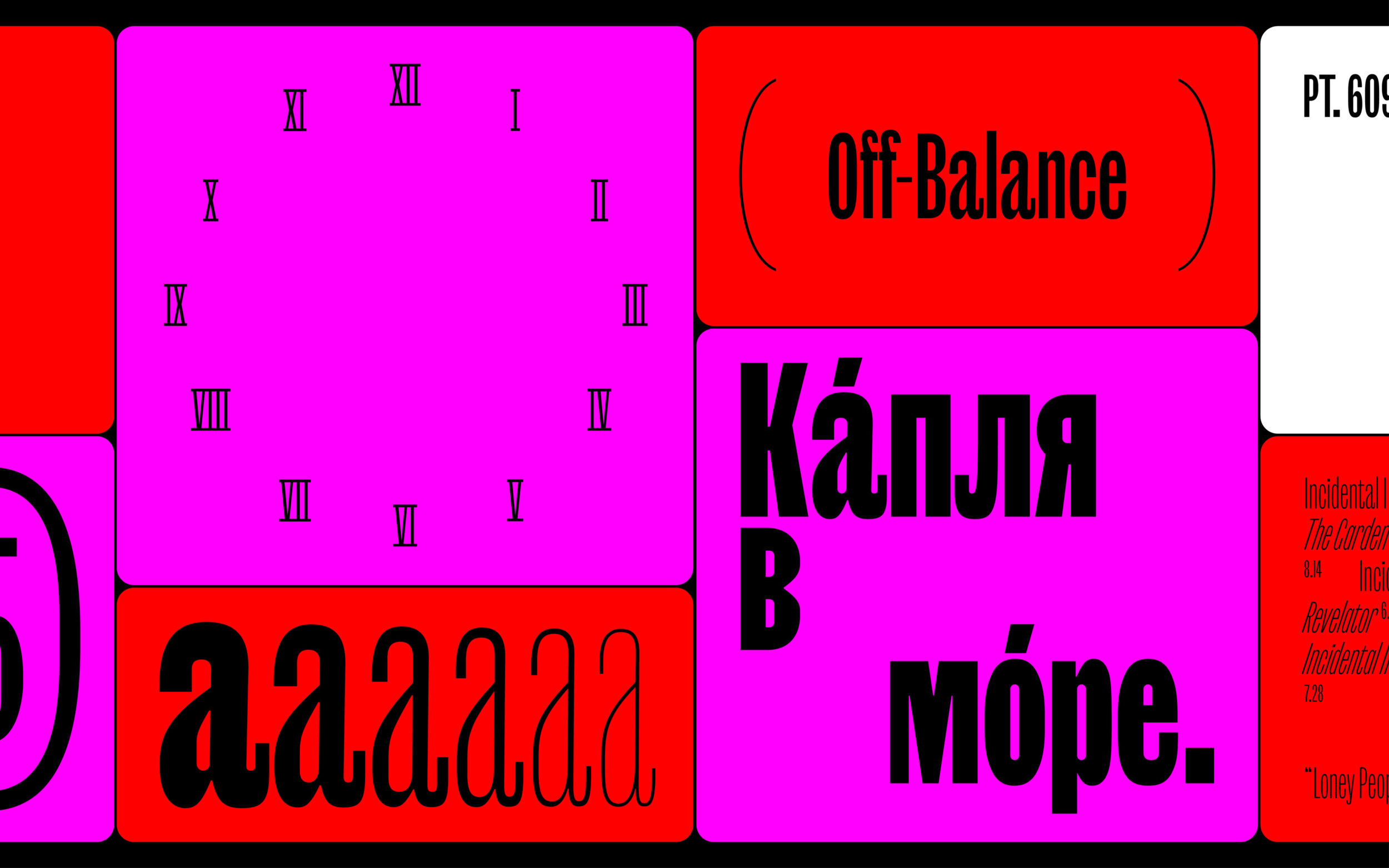
Yuni Grotesque! It’s not just a compressed sans or a dismembered sibling of Yuni Slab ———— it is the second coming of the highly anticipated Yuni Collection; the St. Peter of the typographical pearly gates; the end of the Samsara of narrow sans serifs!
Yuni Grotesque’s curves are playful and highly suggestive. While weight transforms counters into almost-circular rounds, outer curves take a flatter approach. Bringing these two approaches together results in a blend, a beautiful bouquet of high functioning foolishness. Separated from its serifed sibling — which played with the distribution of serifs, balls, historical references and the same curvature — Yuni Grotesque fashions a fully-fledged life of its own, while keeping a close kinship alive.
In six finely-curated steps, its weight range covers everything you need from a flimsy Hair, or an advantageous Medium, all the way to a thick and sturdy Black. Additionally Yuni parades speed and confidence with Italic styles heavily sloped at an expressive 18° angle. This compressed powerhouse of 12 styles plays for keeps and is best suited for everything grand and mighty: intricate branding, sophisticated layouts, oversized movie titles or inflatable event signage you can see from space or whatever will save the world. Reputationally speaking.
With more than 900 glyphs per style, including native-approved Cyrillic and a broad Latin character set, Yuni Grotesque speaks more than 270 languages. Steep accents, multiple figure sets (circled ones included), a finely-selected collection of arrows, and OpenType features like case-sensitive punctuation, contextual alternate forms and alternative highlights for dynamic typesetting are some of the typographic extras Yuni can use to cater to your heart’s desire.